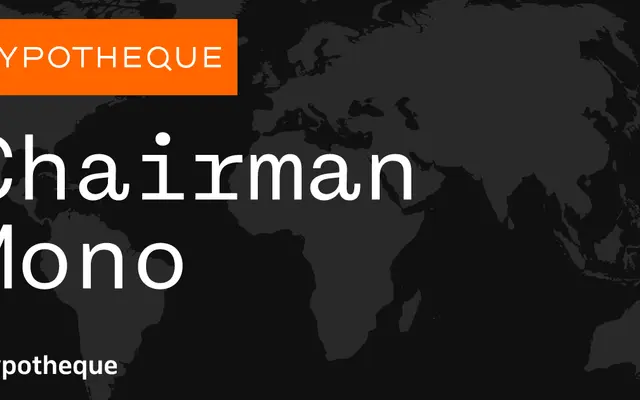
Chairman Mono
A monospaced type system from Typotheque spanning four subfamilies, from strict mono through semi-mono to text and display opticals, with a variable font companion.
A thoroughly considered monospaced system with five sub-families covering Chairman Mono, Chairman Semi-Mono, Chairman Text and Chairman Display, plus a variable font. Weights run from Thin to Black depending on the subfamily, with slanted or italic companions throughout. The range of optical sizes makes it suited for everything from code and data interfaces to editorial headlines.
Chairman Mono is explicitly a monospaced typeface with a semi-mono variant and variable font, designed for both code and editorial use across multiple optical sizes.